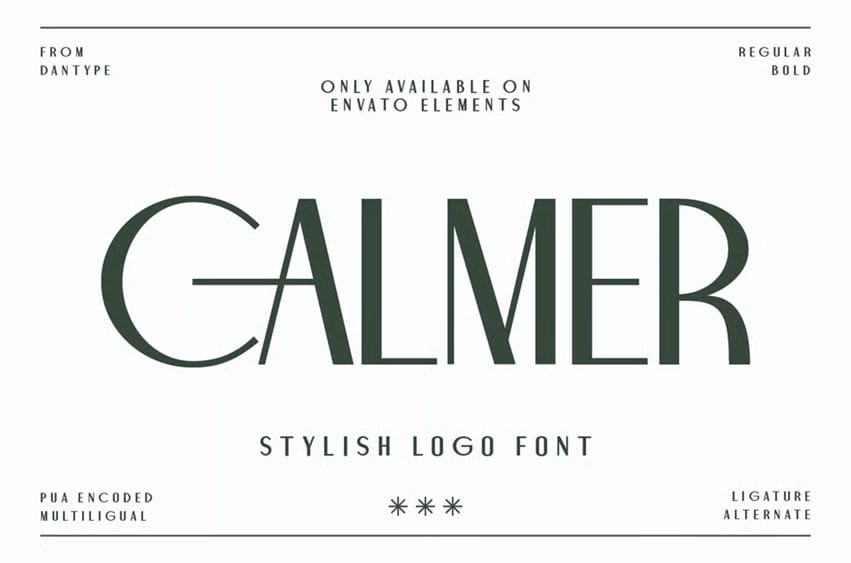
Calmer Font is a refined sans-serif font that blends minimalist geometry with subtle elegance. Its tall, narrow forms and graceful spacing create a poised visual rhythm—perfect for branding, fashion editorials, and modern luxury designs.
Featuring 38 stylish ligatures and underlined vowels (A, E, O, U), Calmer offers both functionality and flair for creative professionals seeking distinction.
- 38 Unique Ligatures & Underline letters (A, E, O, U)